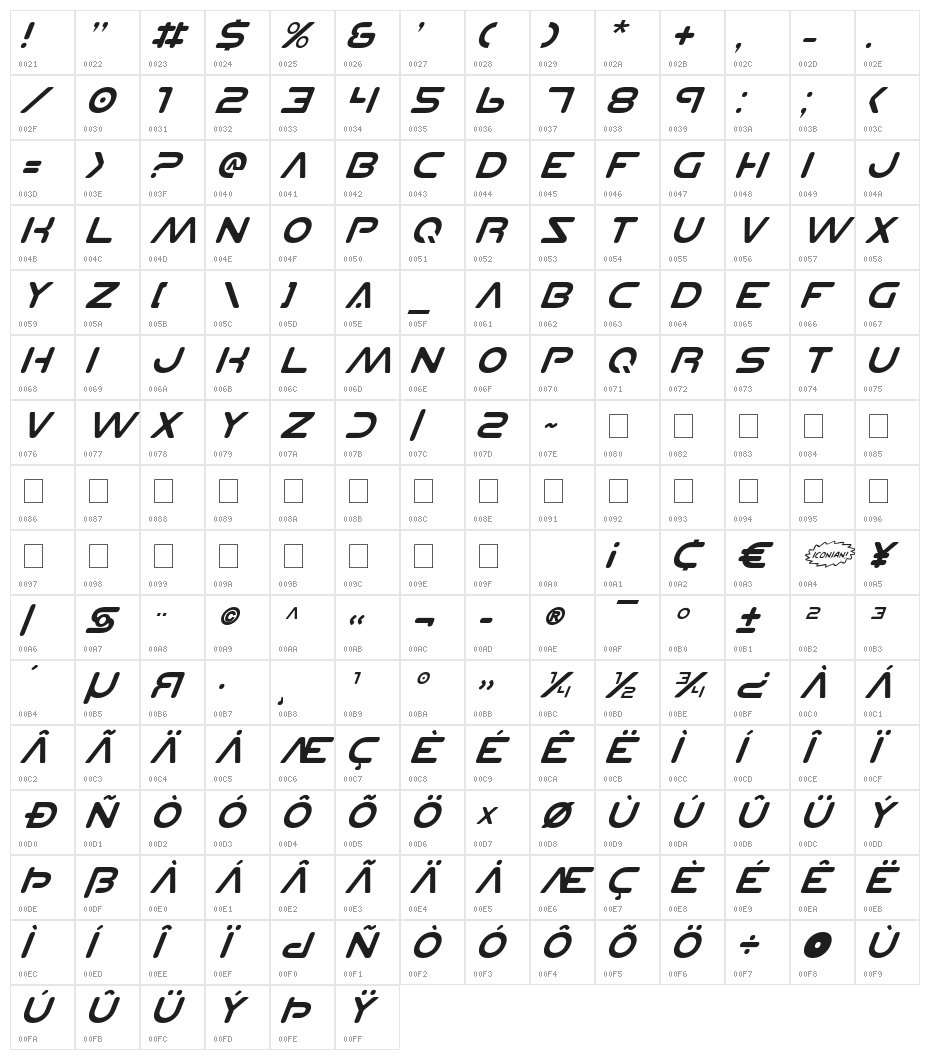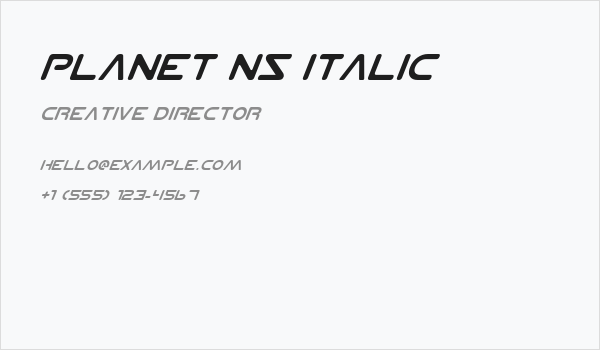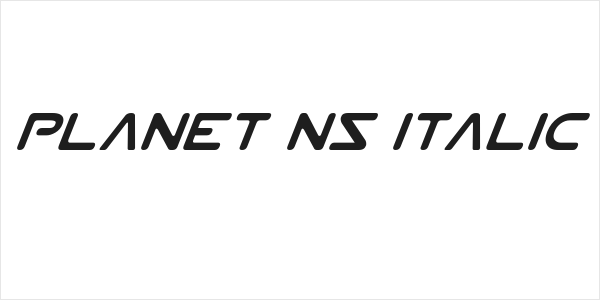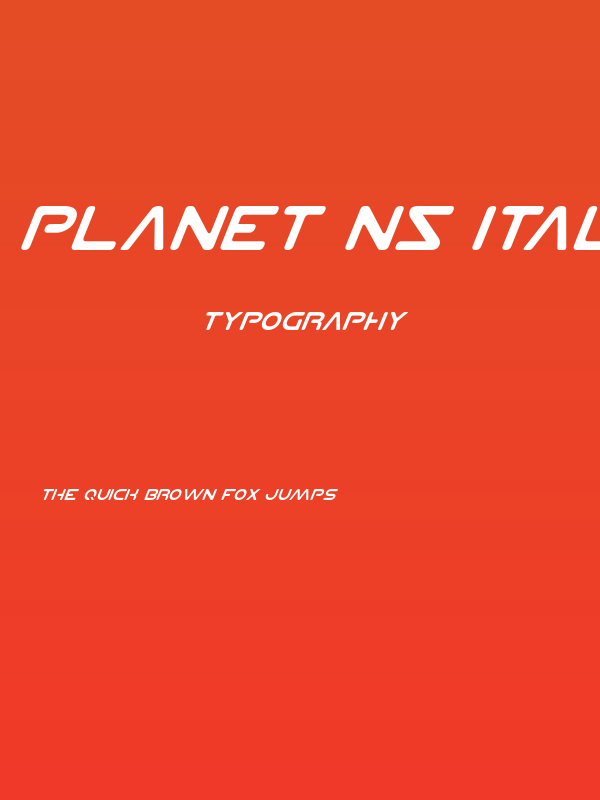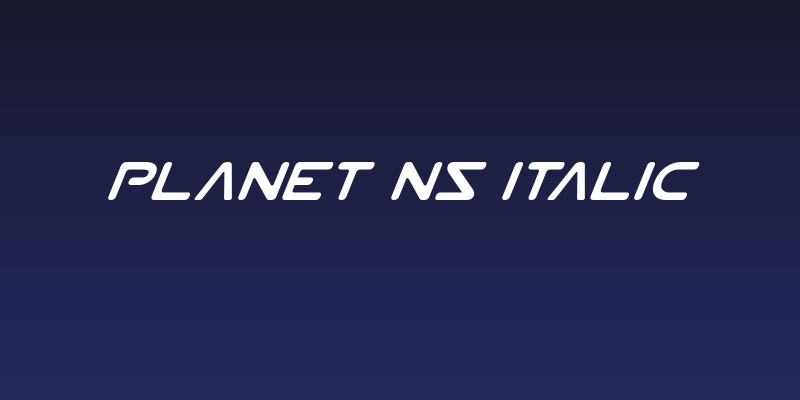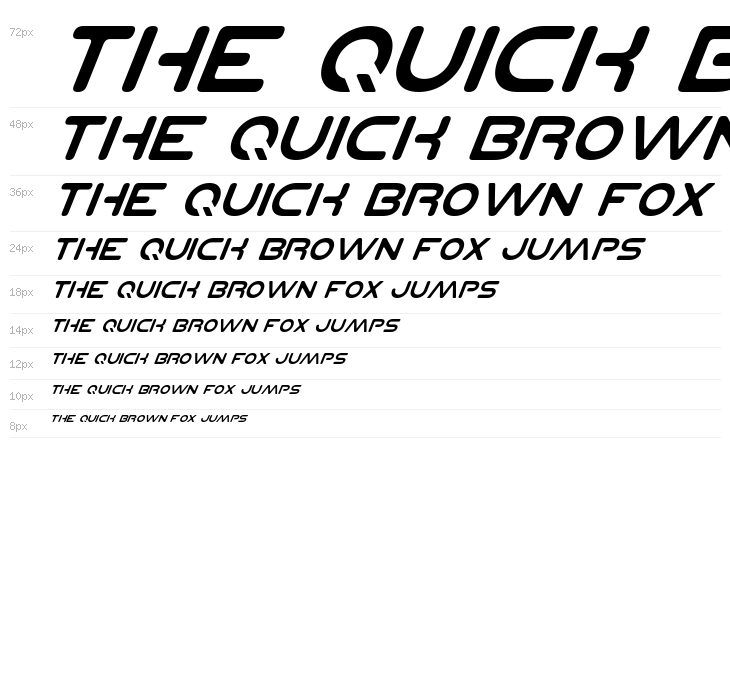
Planet NS Italic Font
Planet NS Italic Description
This font features a sleek, futuristic design with a distinct italic slant, giving it a dynamic and forward-moving appearance. The characters are crafted with smooth, continuous lines and rounded edges, creating a sense of fluidity and motion. The uppercase and lowercase letters maintain a consistent style, with unique elements such as the slashed zero and the angular design of letters like 'Q' and 'R'. The numerals and special characters follow the same aesthetic, ensuring uniformity across all glyphs. The overall look is modern and tech-inspired, making it suitable for projects that require a contemporary and innovative feel.
| Use Case | Headlines, Logos, Digital Interfaces |
| Proposed Projects | Ideal for technology branding, sci-fi themed designs, modern advertising, and digital interfaces. |